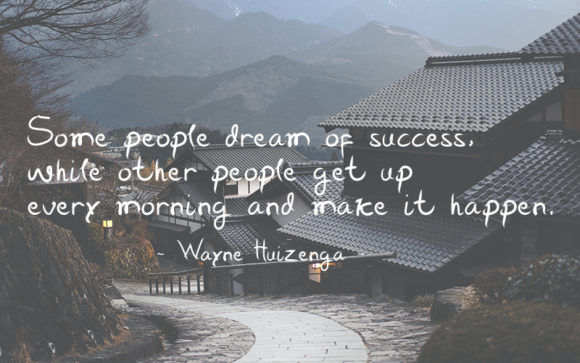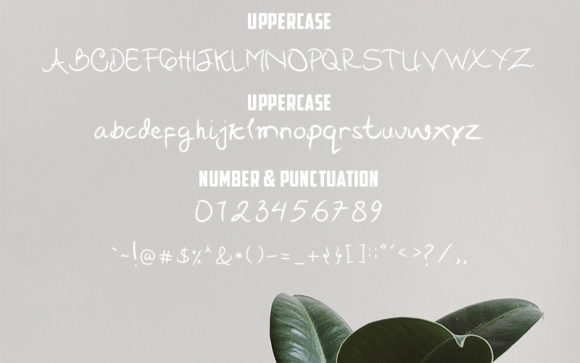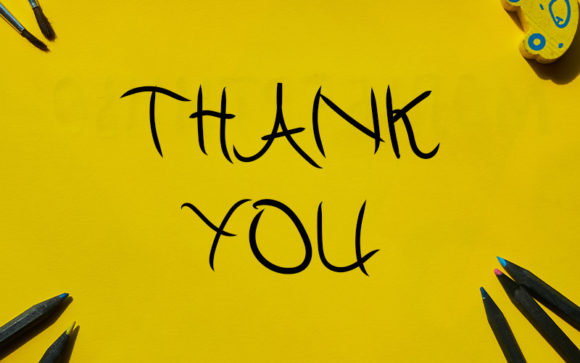
Introducing Geisya Font: The Perfect Blend of Casual and Quirky
Are you tired of using the same old fonts for your design projects? Look no further than Geisya Font, a casual, fun handwritten font that’s sure to add a touch of personality to your work. Created by using a brush pen, Geisya is a clean and quirky font that’s perfect for logos, branding, social media, and crafty DIY projects.
The Story Behind Geisya Font
Geisya Font is a unique and creative typeface that’s been carefully crafted to bring a sense of playfulness and whimsy to your designs. The font’s creator used a brush pen to develop the characters, giving Geisya a distinctive, hand-drawn feel that’s both modern and approachable. Whether you’re designing a logo, creating social media graphics, or working on a crafty DIY project, Geisya is the perfect choice.
Key Features of Geisya Font
So what makes Geisya Font so special? Here are just a few of its key features:
- Casual and fun: Geisya is a handwritten font that’s perfect for designs that need a personal touch.
- Clean and quirky: The font’s clean lines and quirky characters make it a great choice for designs that need to stand out.
- Brush pen created: Geisya’s unique character is thanks to its creation with a brush pen.
- Perfect for logos and branding: Geisya’s distinctive style makes it a great choice for logos and branding projects.
- Ideal for social media and DIY projects: Geisya’s playful style is also perfect for social media graphics and crafty DIY projects.
Using Geisya Font in Your Designs
Geisya Font is incredibly versatile, and can be used in a wide range of design projects. Here are just a few ideas to get you started:
- Logos and branding: Use Geisya to create a unique and memorable logo that will help your brand stand out.
- Social media graphics: Add a touch of personality to your social media graphics with Geisya’s playful style.
- Crafty DIY projects: Geisya is perfect for crafty DIY projects, such as handmade cards, gift tags, and more.
- Invitations and events: Use Geisya to create unique and eye-catching invitations and event materials.
Why Choose Geisya Font?
With so many fonts to choose from, why should you choose Geisya? Here are just a few reasons:
- Unique and distinctive: Geisya’s hand-drawn style makes it a unique and distinctive font that’s sure to stand out.
- Easy to read: Despite its playful style, Geisya is incredibly easy to read, making it perfect for body text and headlines.
- Highly versatile: Geisya can be used in a wide range of design projects, from logos and branding to social media graphics and DIY projects.
- Fun and playful: Geisya’s playful style is sure to add a touch of fun and personality to your designs.
If you’re looking for a font that’s casual, fun, and quirky, look no further than Geisya Font. With its unique hand-drawn style, clean lines, and playful characters, Geisya is the perfect choice for designers and crafters alike. Whether you’re working on a logo, social media graphic, or crafty DIY project, Geisya is sure to add a touch of personality and whimsy to your design.